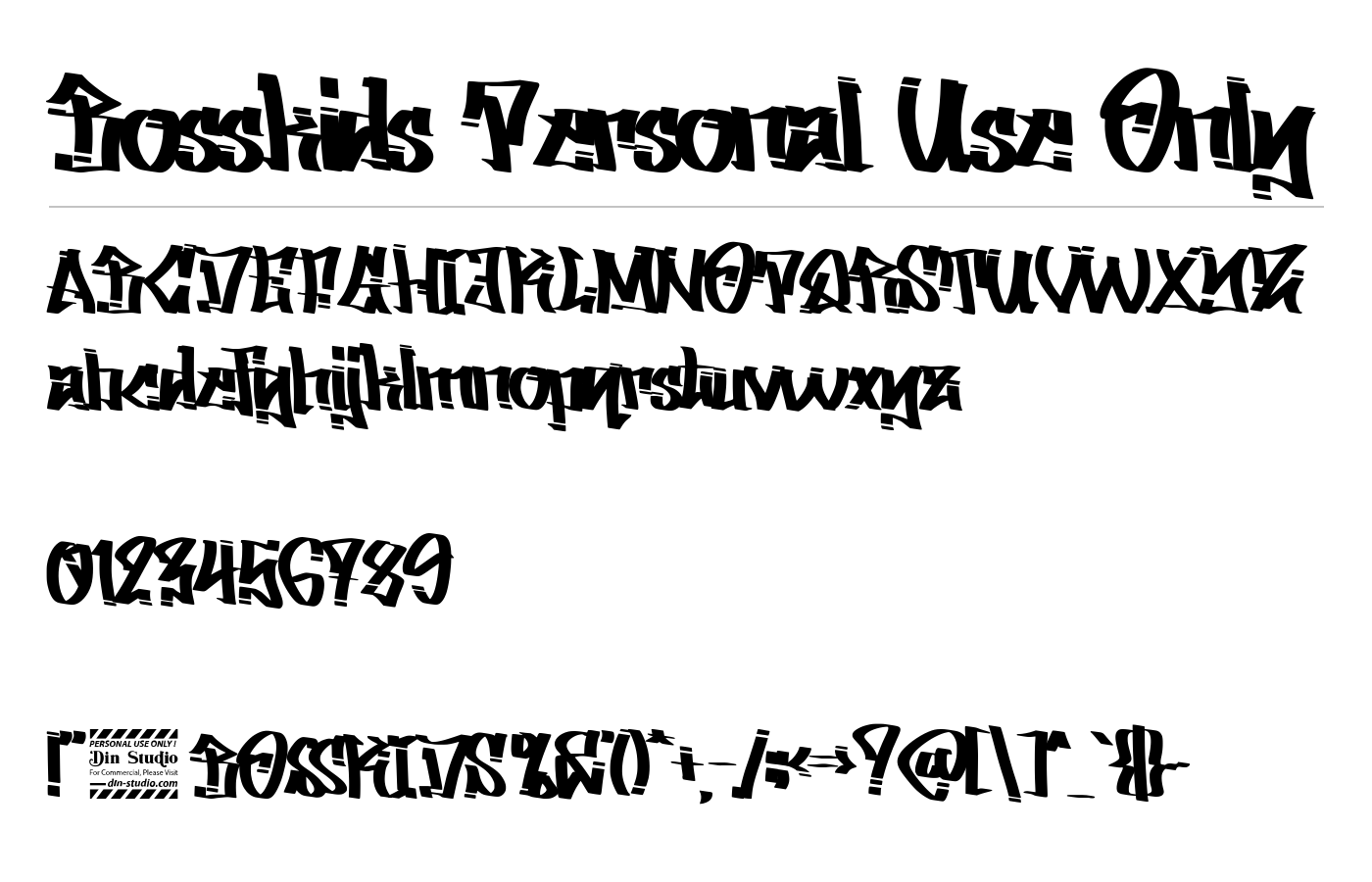
Bosskids Personal Use Only is a bold, playful display font with a graffiti-inspired style that blends strong, irregular strokes and angled letterforms for a dynamic, urban feel. Its distinct, jagged shapes and layered, shadow-like details give it an edgy, street-art personality ideal for youth-oriented designs, logos, or bold headlines where a rebellious, creative vibe is desired. This font works best in creative projects that want to convey energy and attitude rather than traditional readability.
Bosskids Personal Use Only Font
About Bosskids Personal Use Only Font
| Font family | Bosskids Personal Use Only Font |